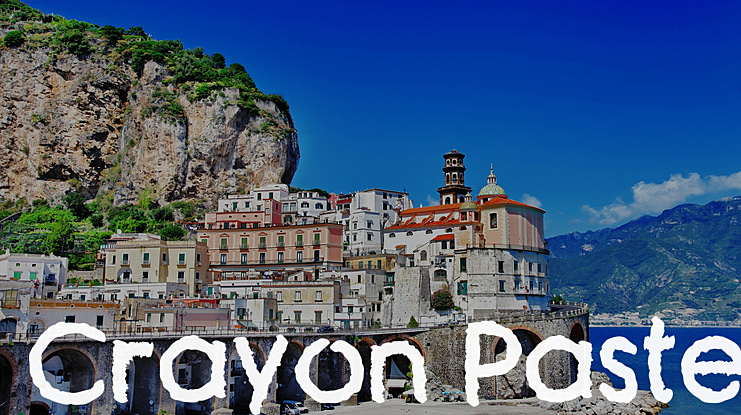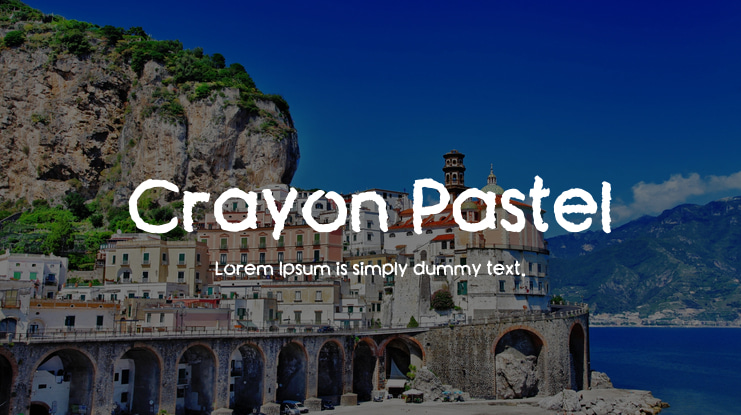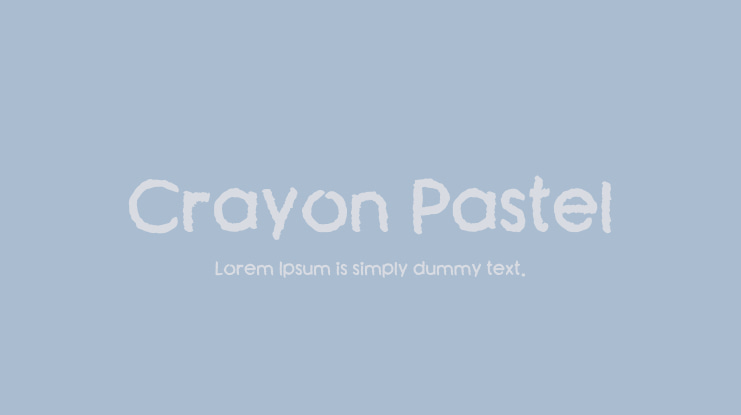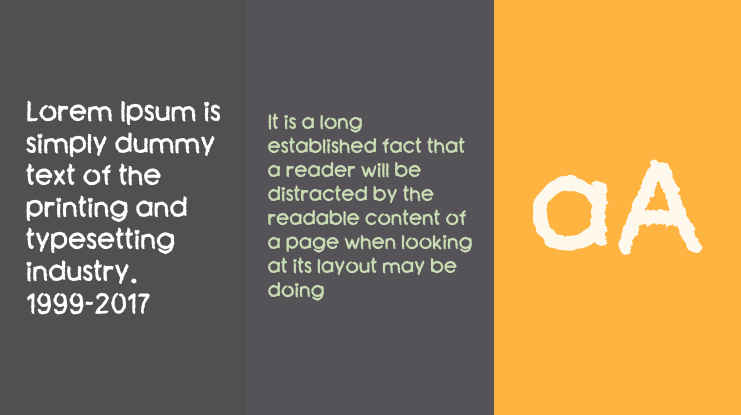
Crayon Pastel Font
Crayon pastel is a hand-drawn texture crayon font that helps you have a little fun Use this font to create an instantly relatable design like children’s book, story book and fun card for kids and many more